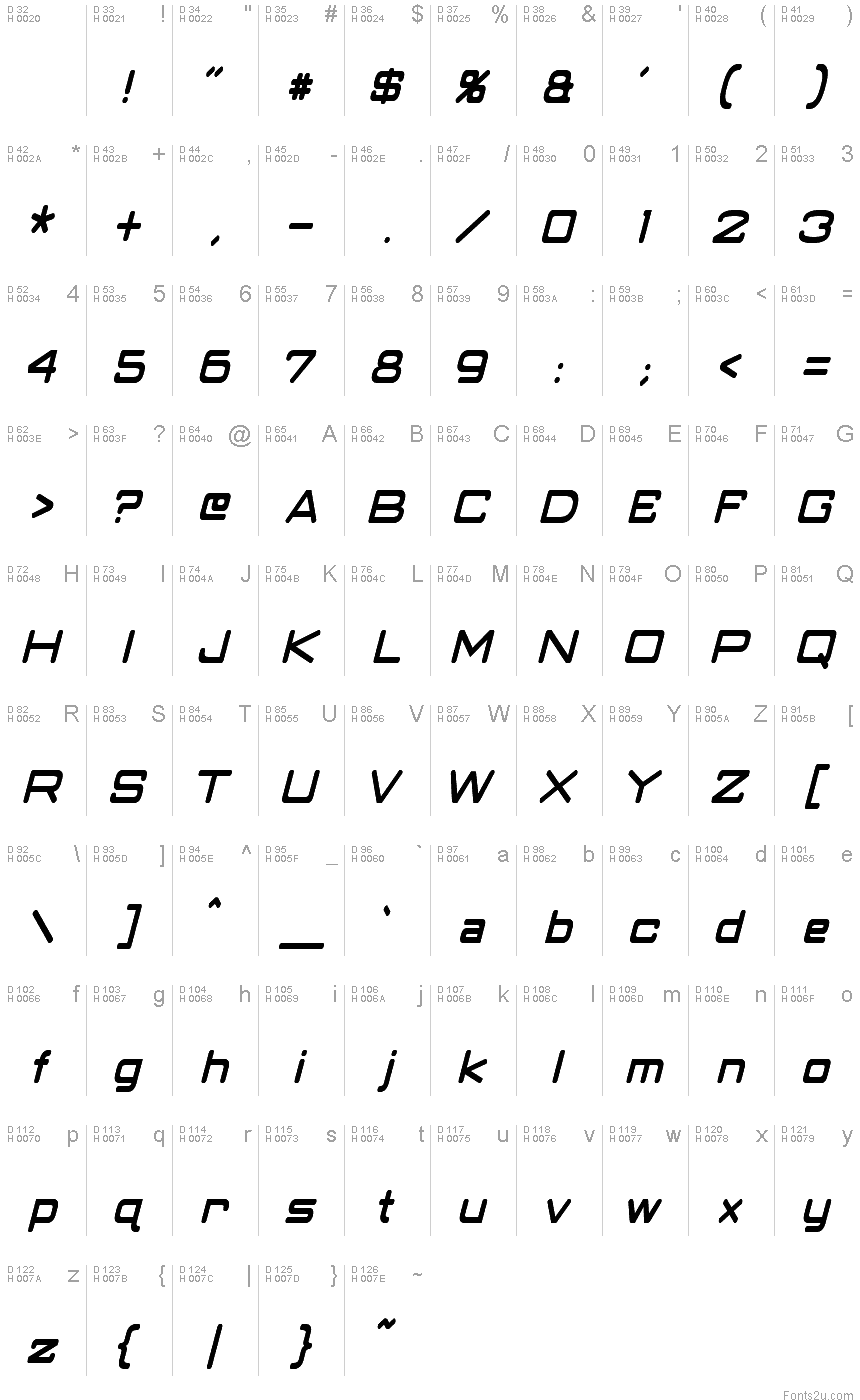
Classic Robot Condensed Italic
Classic Robot is an LCD-like typeface based on the packaging of Hasbro's 2006 Transformers: Classics toyline. Includes full alphabet, extended character set, and Euro. Also includes Bold, Italic, Bold-Italic and Condensed versions.